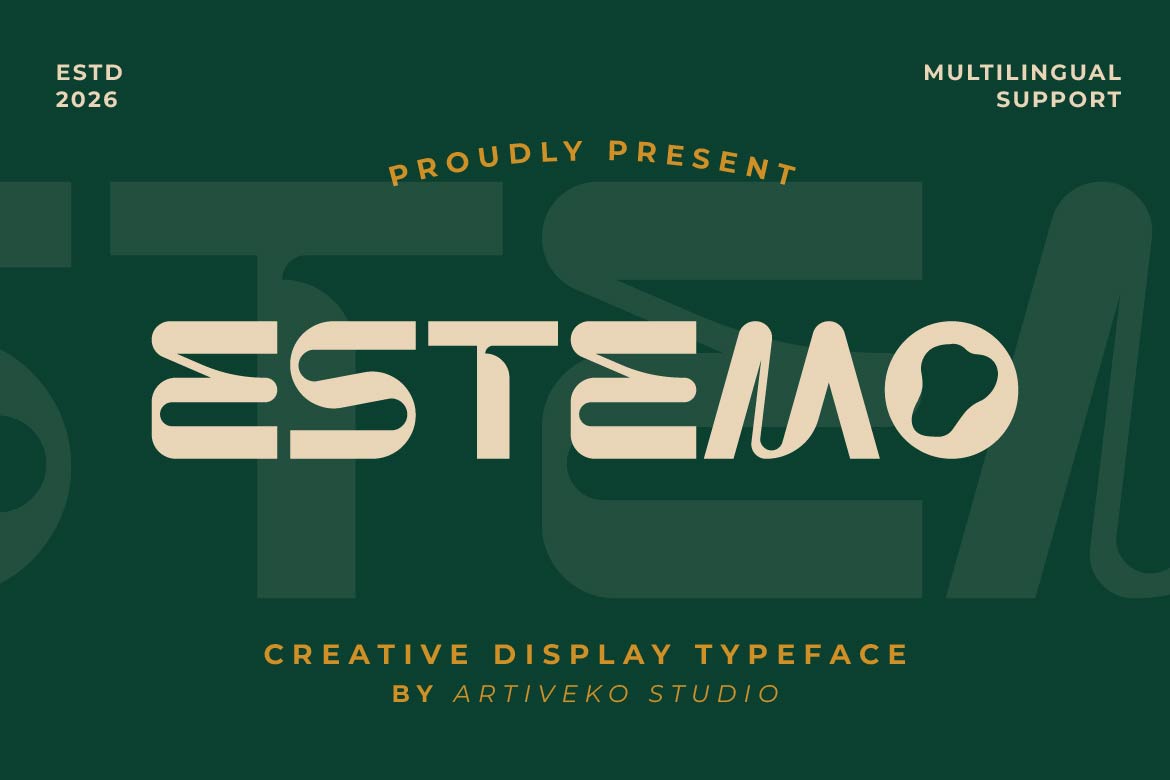
- Estemo – Expressive Display Font
Estemo is a creative display font designed to turn bold ideas into unforgettable visual experiences. With distinctive letterforms, modern styling, and expressive character, Estemo brings originality and confidence to every design while maintaining excellent readability at display sizes.
Perfect for logos, branding, posters, packaging, editorial layouts, merchandise, social media graphics, and advertising campaigns, Estemo helps designers create eye-catching compositions with a unique contemporary personality. Its versatile display style makes it suitable for creative agencies, lifestyle brands, fashion labels, music events, cafés, and modern startups.
Whether you’re designing a memorable logo, launching a creative campaign, or crafting impactful headlines, Estemo delivers the perfect balance of creativity, versatility, and modern appeal.
Estemo isn’t just a font—it’s a bold creative statement built to make every design unforgettable.